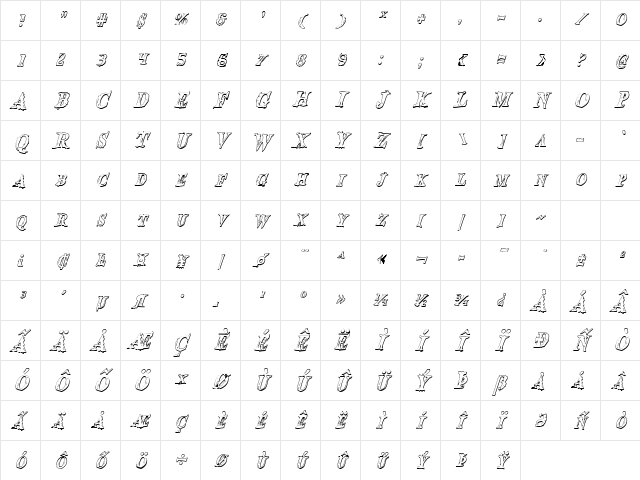
Complete Blood Crow Shadow Condensed Italic glyph index. Displaying only characters natively supported by Blood Crow Shadow Condensed Italic font.
Blood Crow Shadow Condensed Italic carries an unsettling edge - its distorted letterforms are built to unsettle, perfectly suited to horror, Halloween, and dark creative work. The slanted form adds forward momentum and visual energy.
Font Pairing: Pair with a clean neutral sans-serif for body copy to let Blood Crow Shadow Condensed Italic's character lead without overwhelming the composition.
Pro Tip: Use Blood Crow Shadow Condensed Italic at larger display sizes for maximum impact. Consider generous tracking to let the disturbing character of each letterform breathe.